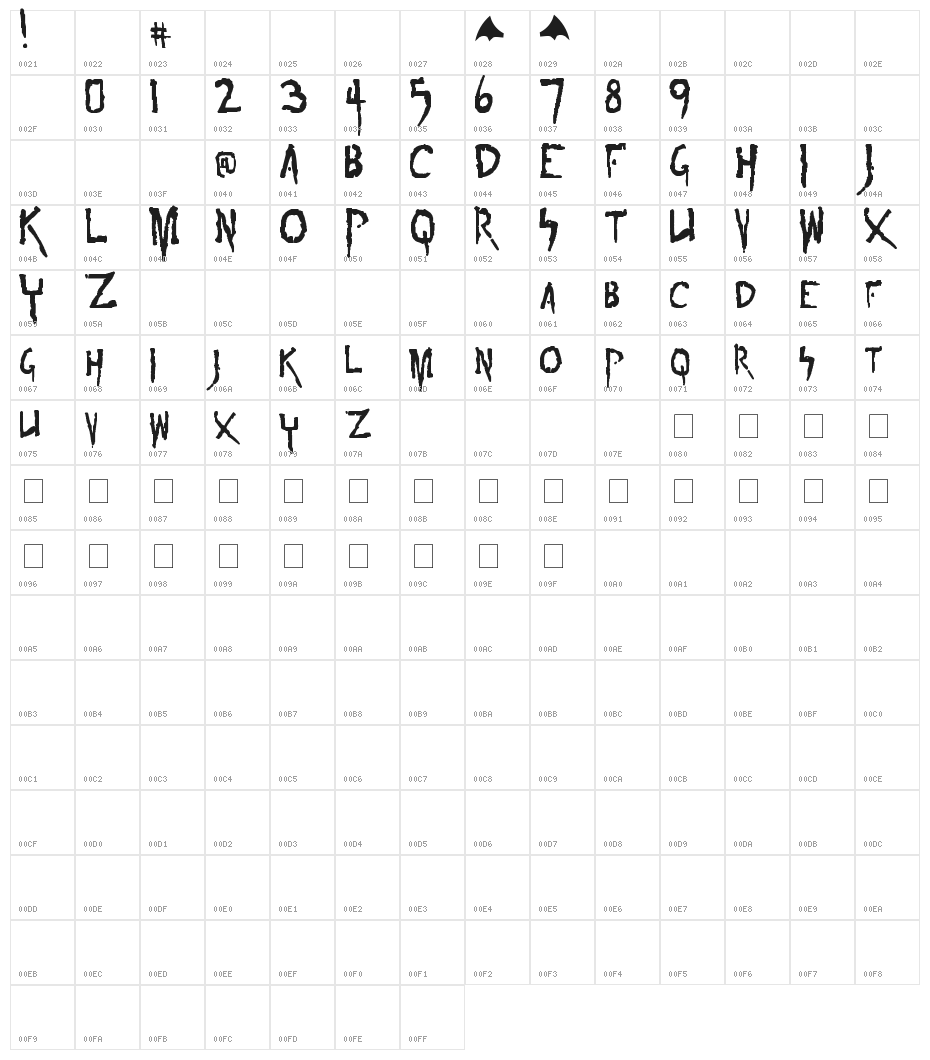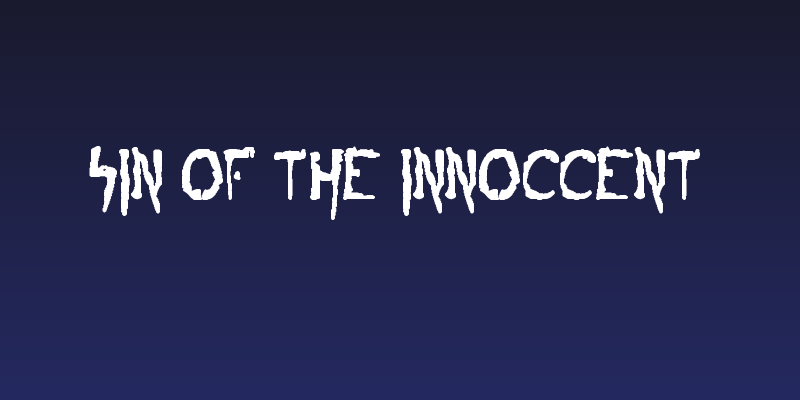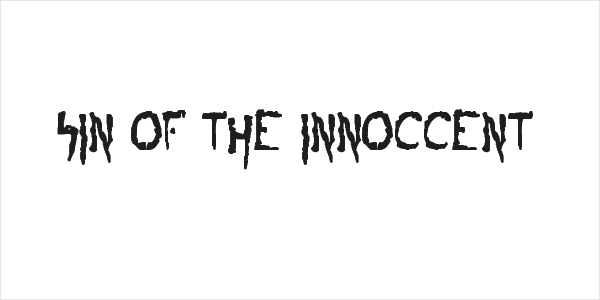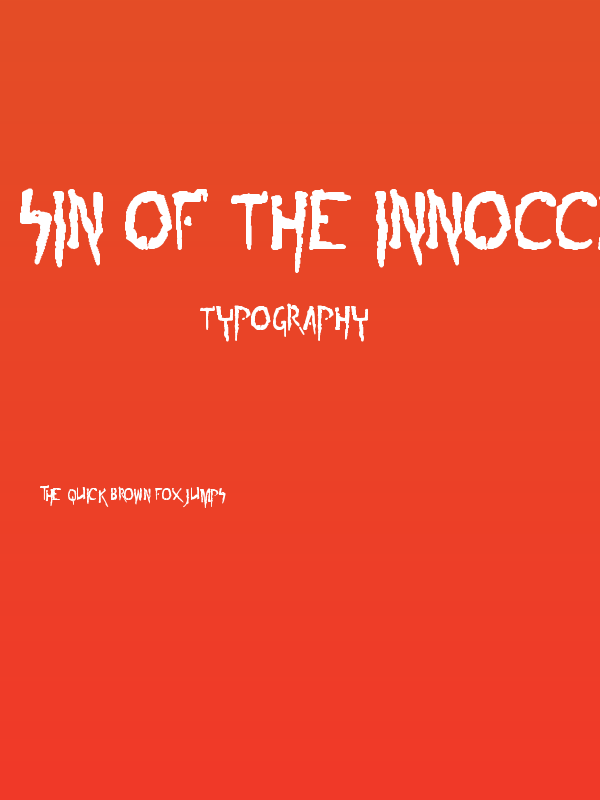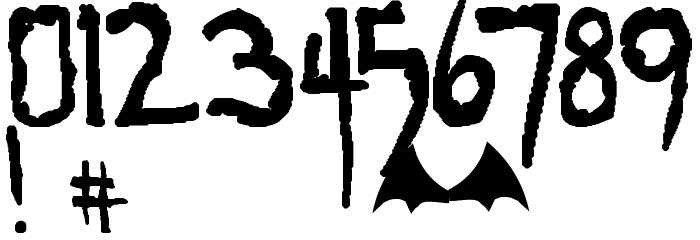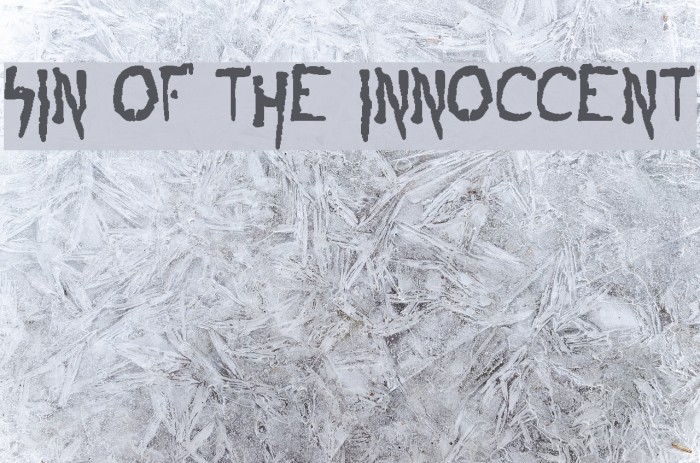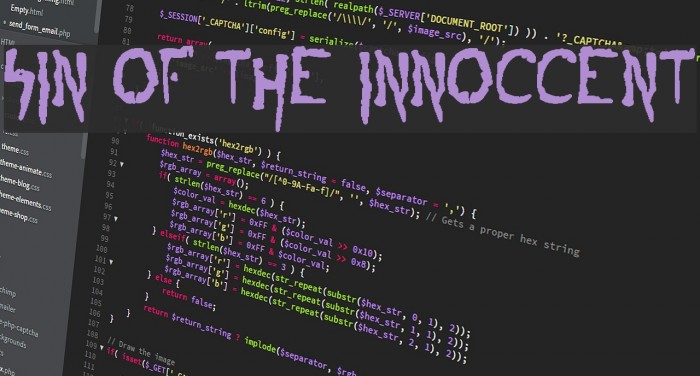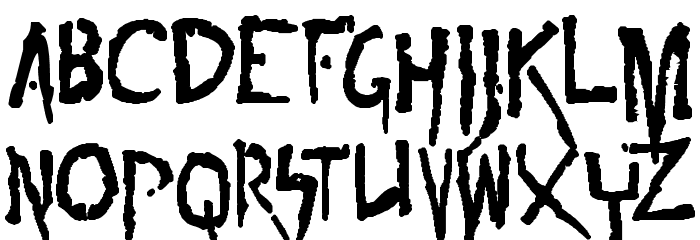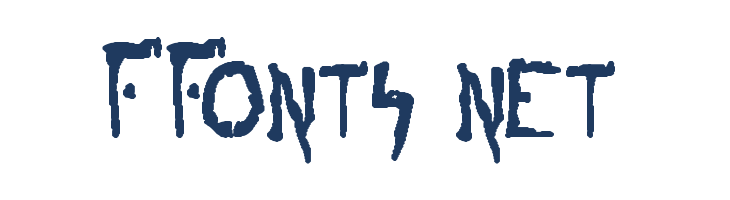
sin of the innoccent Font
sin of the innoccent Description
This font features a highly decorative and edgy style, characterized by its jagged and irregular strokes. The uppercase letters are bold and dramatic, with sharp angles and a distressed appearance that gives a sense of chaos and intensity. The lowercase letters maintain this rugged aesthetic, ensuring consistency throughout the typeface. Numbers are equally bold, with a slightly exaggerated form that enhances their visibility. Special characters are creatively designed, adding to the font's unique and artistic flair. This font is perfect for projects that require a strong visual impact, such as horror-themed designs, posters, or album covers.
| Proposed Projects | Ideal for horror-themed designs, edgy posters, album covers, and artistic projects requiring a strong visual impact. |